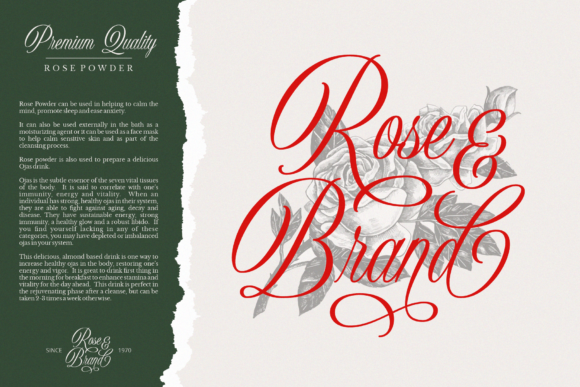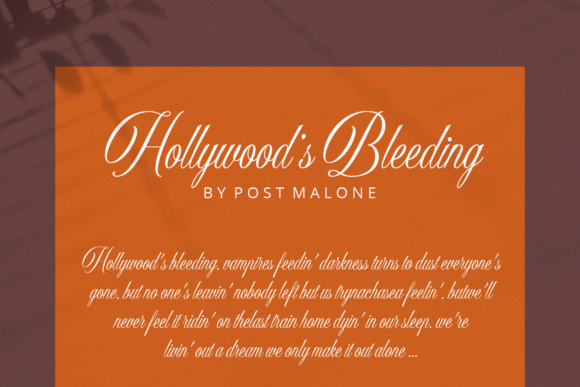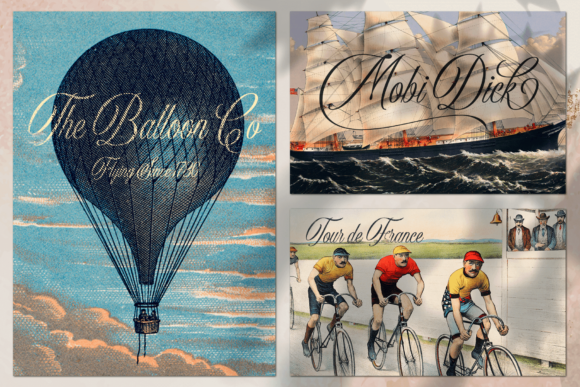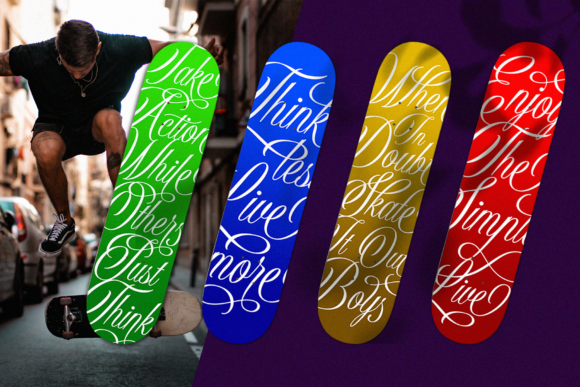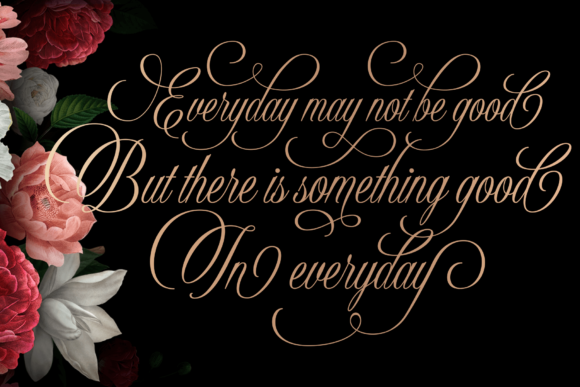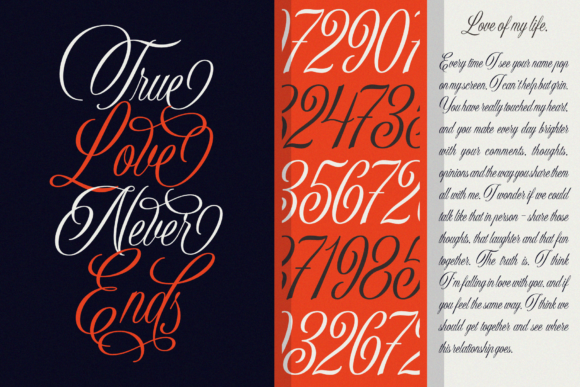
Introduction to Sholaria Font
Have you ever been working on a creative project, pouring your heart and soul into it, only to be held back by the perfect font? The one that elevates your design from good to great? For designers, finding that elusive font can be a game-changer. It’s the difference between a project that’s just okay and one that truly stands out.
That’s where the Sholaria Font comes in – a high-quality script font that’s about to revolutionize your design workflow. With its luxurious feel and incredible swashes, this font is perfect for adding a touch of elegance to any project. And the best part? It’s available for free download, making it an invaluable resource for designers of all levels.
Whether you’re working on a branding project, a wedding invitation, or a simple blog post, the Sholaria Font is sure to impress. Its transparent background and high-quality design make it a versatile tool for any creative project. So, what are you waiting for? Dive into the world of Sholaria Font and discover a new level of design sophistication.
Key Features of Sholaria Font
- High-quality design for creative projects, including logos, branding, and more.
- Unique, elegant design with a transparent background, perfect for layering and customization.
- Perfect for designers and artists working on creative projects, including web design, graphic design, and print materials.
- Available in 5 different font sizes, ranging from 12 to 72 points, with high resolution (300 DPI) for crisp, clear text.
- Designed to be highly versatile, with a wide range of applications, from body text to headings and titles.
Honest Review: Sholaria Font
I recently stumbled upon the Sholaria Font, and I must say, it’s been a game-changer for my creative projects. As a designer, I’m always on the lookout for high-quality fonts that can elevate my work, and this one definitely delivers.
- ✨ Elegant design: The Sholaria Font has a unique, elegant design that’s perfect for creating a sophisticated and professional look.
- ✨ Transparent background: The font’s transparent background allows for seamless integration with any design, making it incredibly versatile.
- ⚠️ Limited character set: The font’s character set is a bit limited, which may not be ideal for designers who need to work with a wide range of languages.
- ⚠️ Not suitable for bold text: While the font looks great in regular text, it can get a bit too thin and difficult to read when used in bold or large sizes.
Overall, I’m really impressed with the Sholaria Font. It’s a fantastic design resource that’s perfect for creative projects. While it may have some limitations, its unique design and free download make it a must-have for any designer.
Tips for Getting the Most Out of Sholaria Font
Experiment with different font sizes and styles to add depth and visual interest to your designs. Use the font in combination with other design elements to create a cohesive and engaging visual identity.
The Sholaria Font is perfect for a wide range of creative projects, including logo design, branding, and marketing materials. Its high quality and versatility make it a valuable design resource for professionals and hobbyists alike.